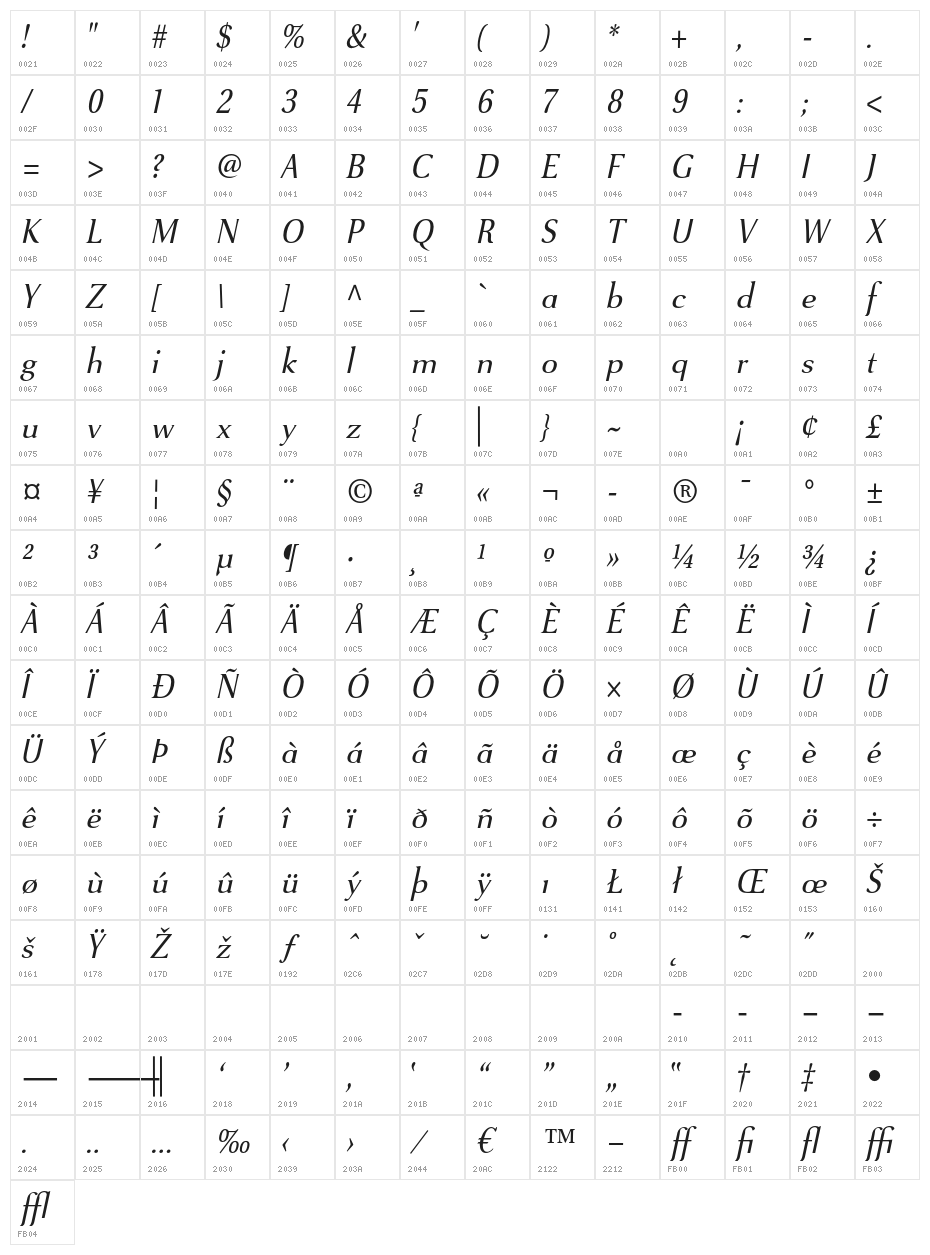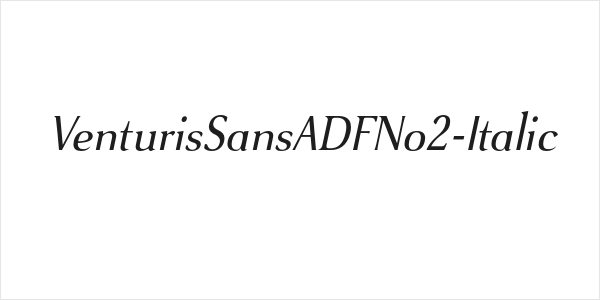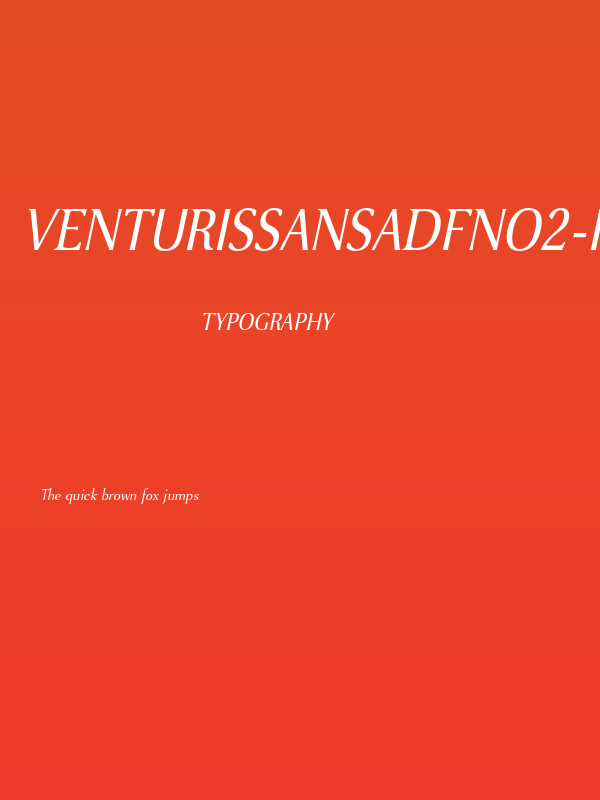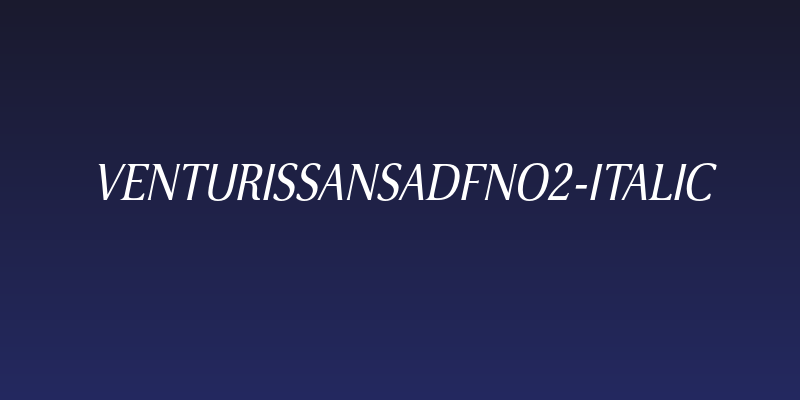
VenturisSansADFNo2-Italic Font
VenturisSansADFNo2-Italic Description
This elegant typeface features a refined italic style with smooth, flowing curves and a sophisticated appearance. The letters are slightly slanted, giving a sense of motion and grace. The serifs are subtle yet distinct, adding a touch of classic elegance. The font maintains a consistent stroke width, providing a balanced and harmonious look. The numerals and special characters are designed with the same attention to detail, ensuring readability and aesthetic appeal. This typeface is versatile, suitable for both formal and creative applications.
| Proposed Projects | Ideal for wedding invitations, formal documents, elegant branding, and editorial design. |